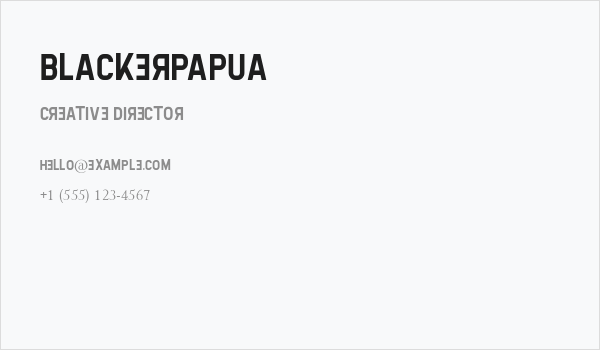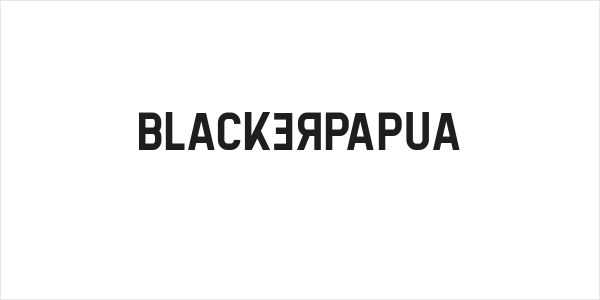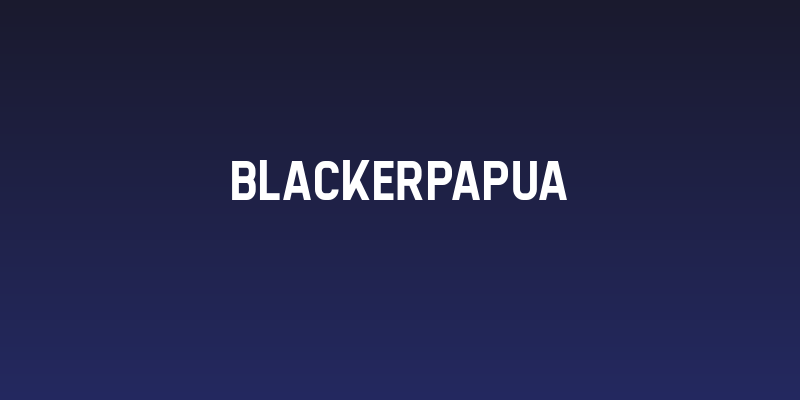
BlackerPapua Font
BlackerPapua Description
This font features a bold and impactful design with strong geometric shapes and a modern aesthetic. The uppercase letters are robust and commanding, while the lowercase letters maintain a consistent style that complements the uppercase. The numerals are clear and straightforward, ensuring readability. Special characters are designed with the same boldness, making them stand out effectively. The overall style is contemporary, making it suitable for a variety of modern design projects. Its high contrast and uniform stroke thickness contribute to its striking appearance.
| Proposed Projects | Ideal for branding, advertising, headlines, and any project requiring a strong visual impact. |